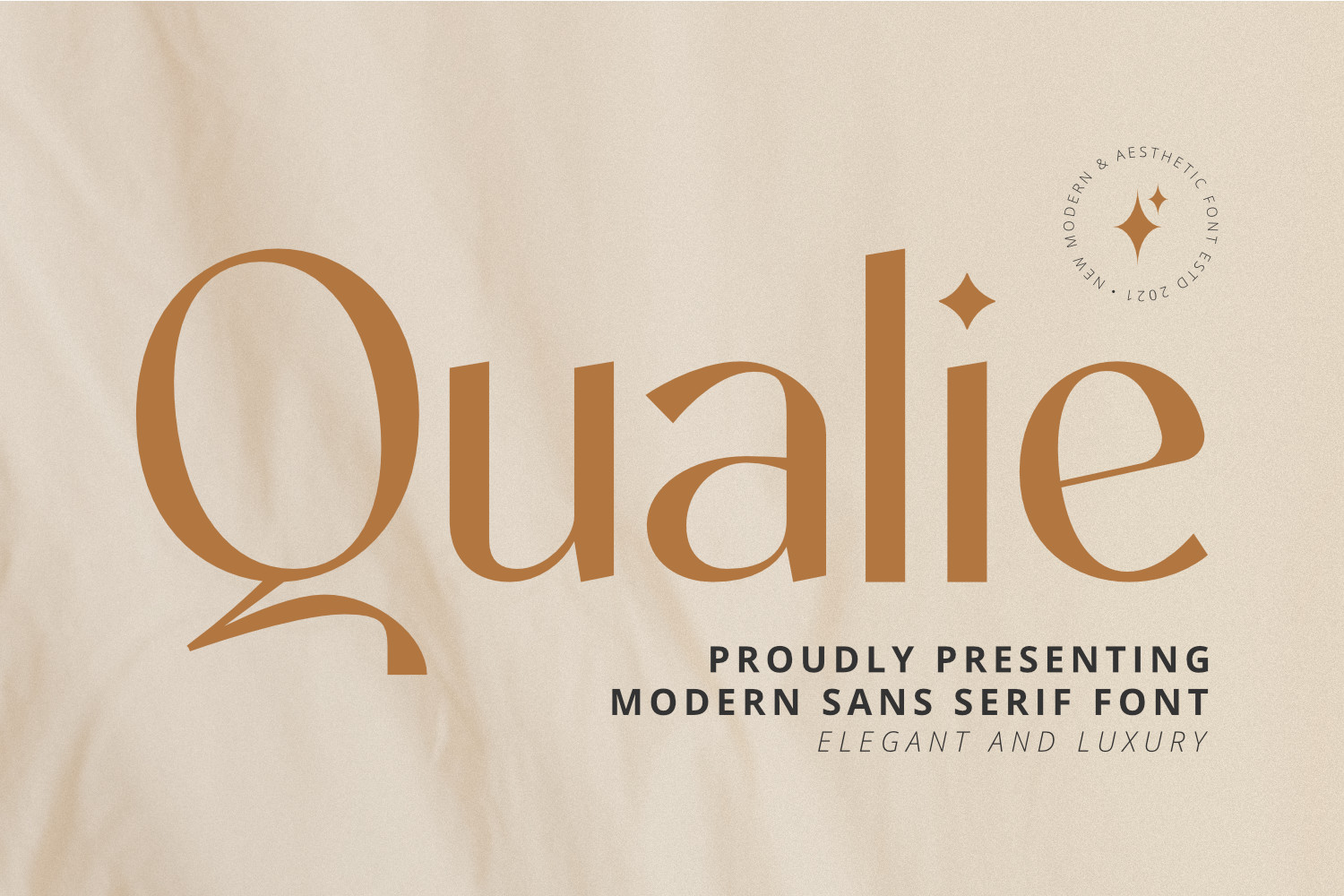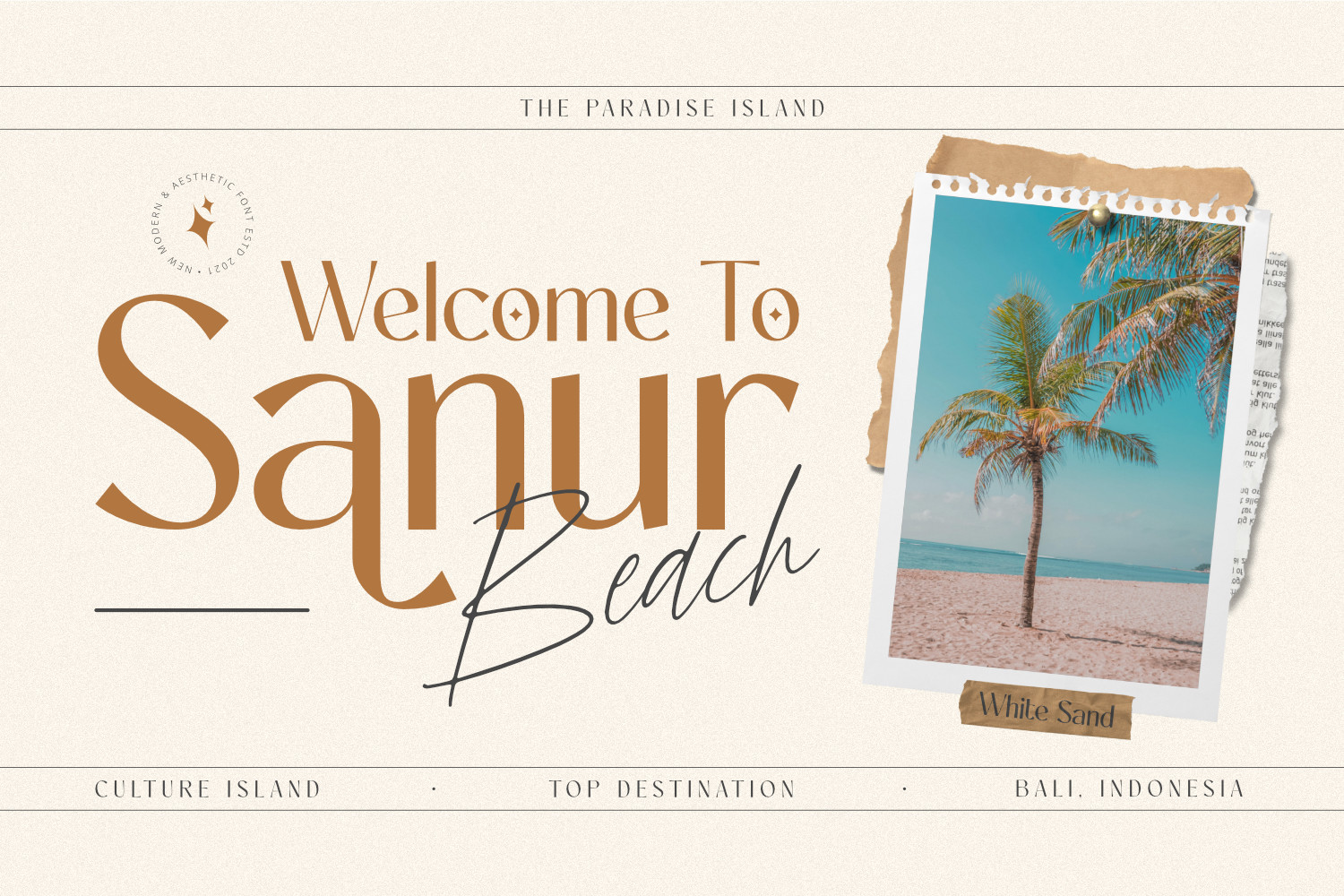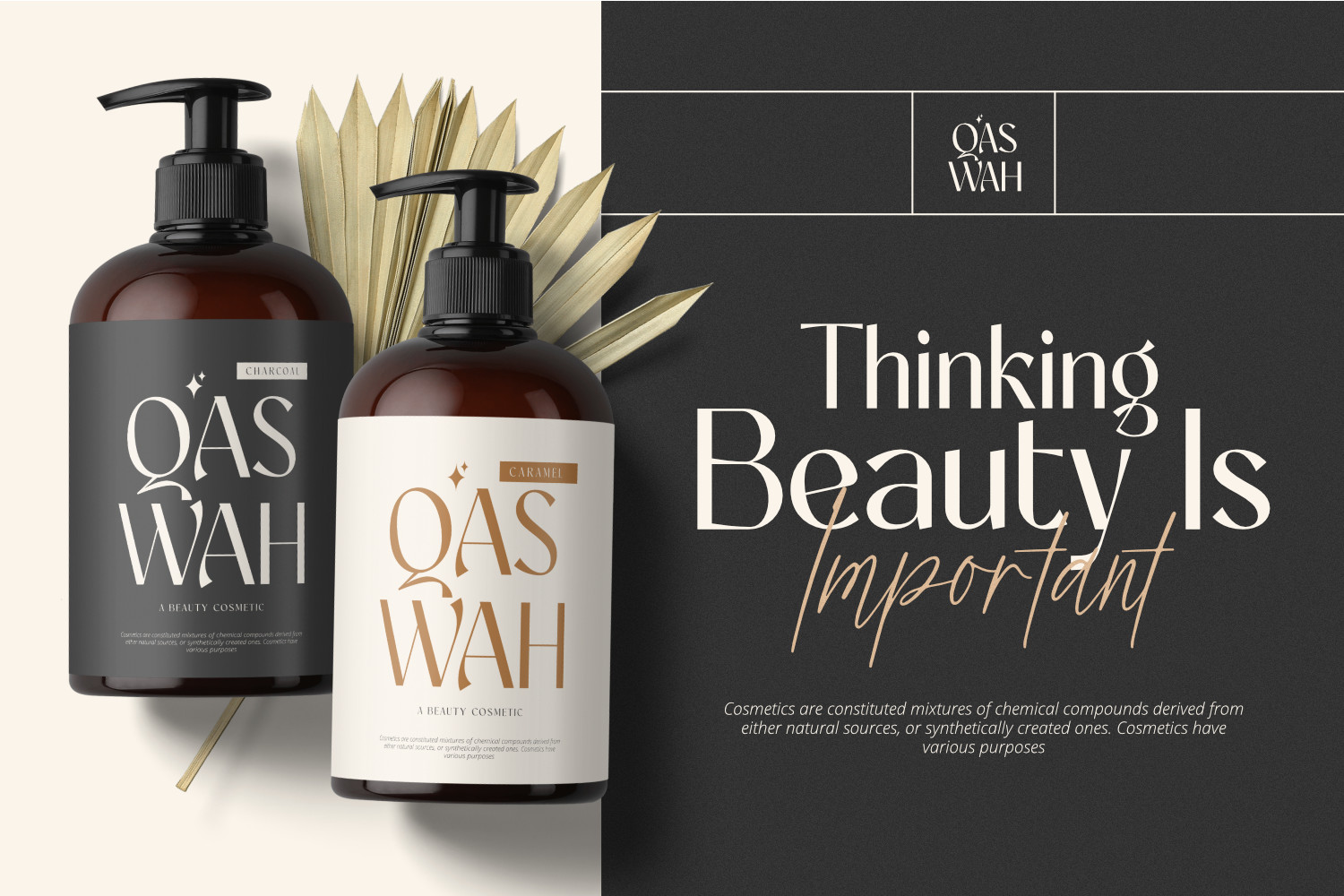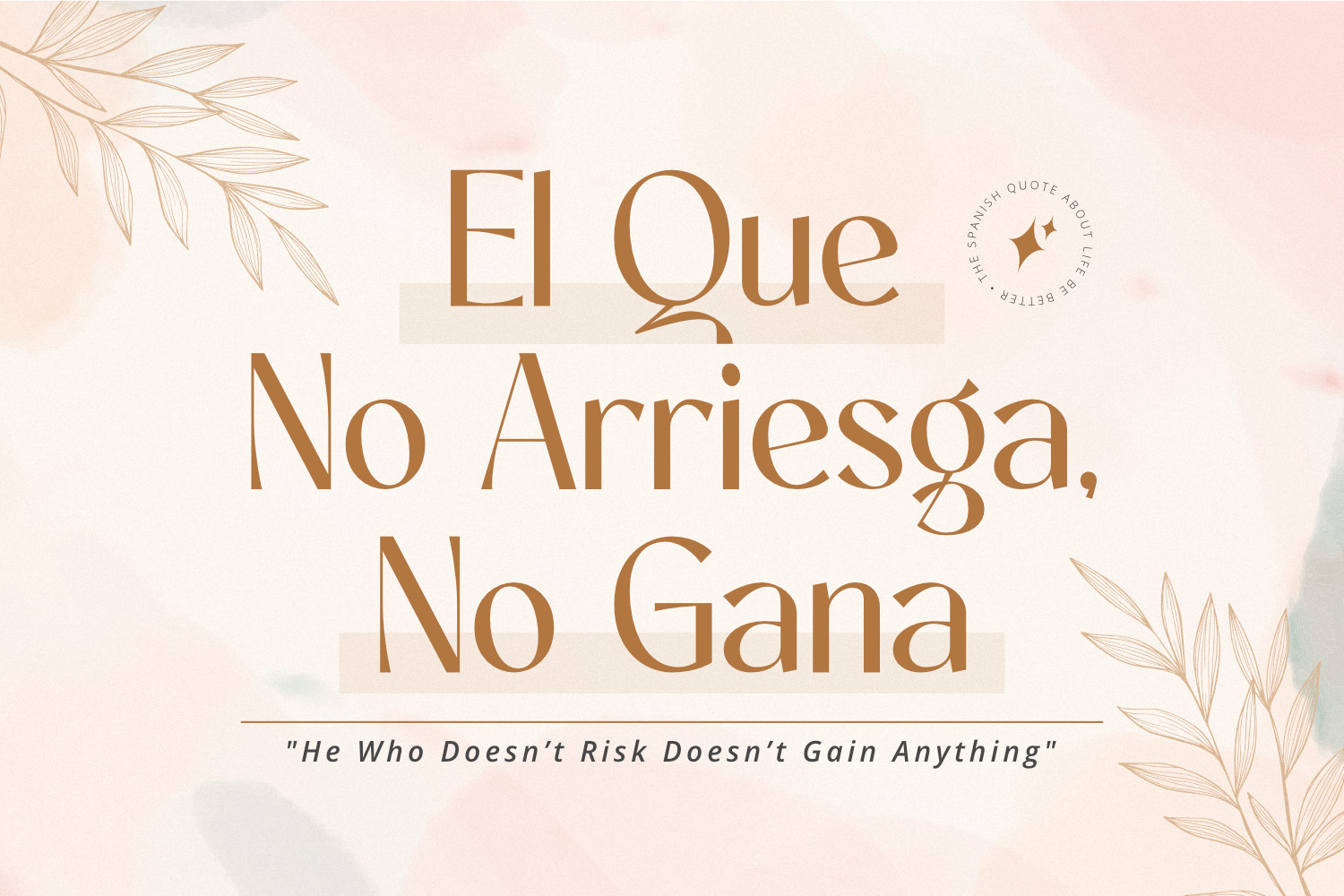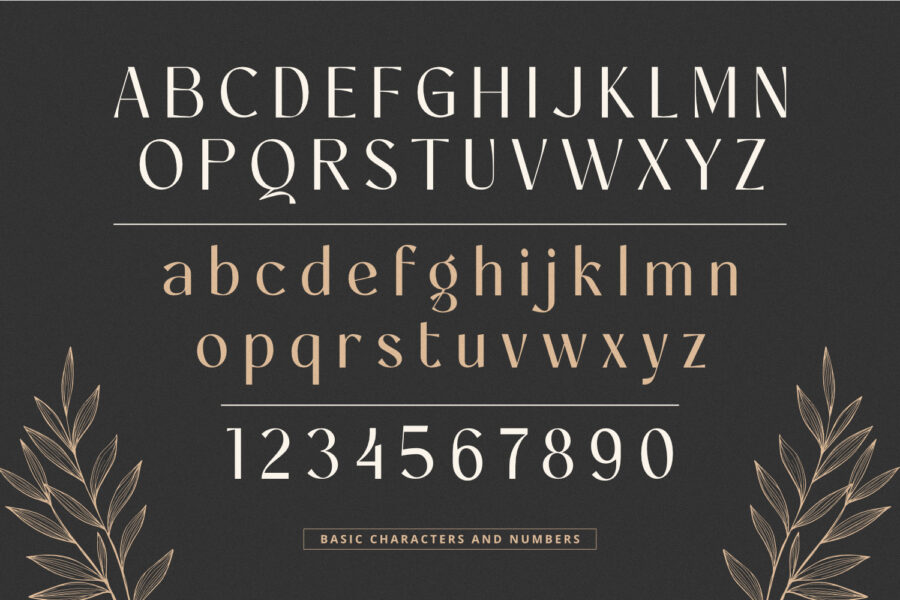
Qualie is a modern sans serif font that exudes elegance and sophistication through its graceful curves and sharp, refined letterforms. Designed to balance contemporary minimalism with classic beauty, Qualie delivers a luxurious typographic experience perfect for upscale branding, editorial design, and premium packaging. The font includes stylized alternates and multilingual support, allowing for both functional and expressive typography in high-end applications.
Whether used in cosmetics branding, lifestyle magazines, or travel promotions, Qualie maintains a clean, versatile look with a touch of character. Subtle ligatures and distinctive details elevate the font’s presence, making it ideal for designers who seek a font that combines legibility with artistic flair. Qualie brings a sense of grace and professionalism to any creative project.